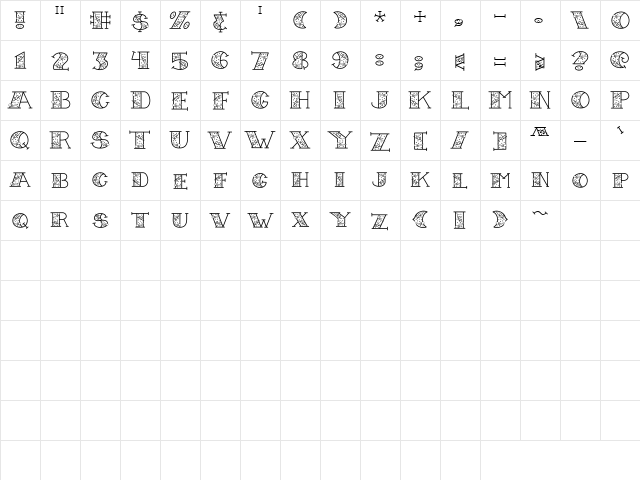
LD Confetti Regular
Design Context for LD Confetti
LD Confetti is a composed and adaptable typeface that performs quietly and consistently across a wide range of design contexts.